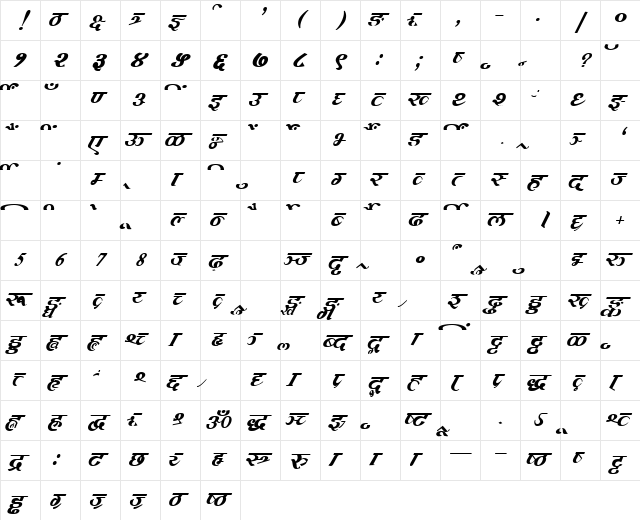
AkrutiDevDeepa Bold Font Preview
AkrutiDevDeepa Bold
Design Context for AkrutiDevDeepa Typeface
AkrutiDevDeepa takes a measured approach to typography — its balanced proportions and neutral character make it a reliable workhorse for both digital and print work. Its bold stroke weight gives it real presence on the page.